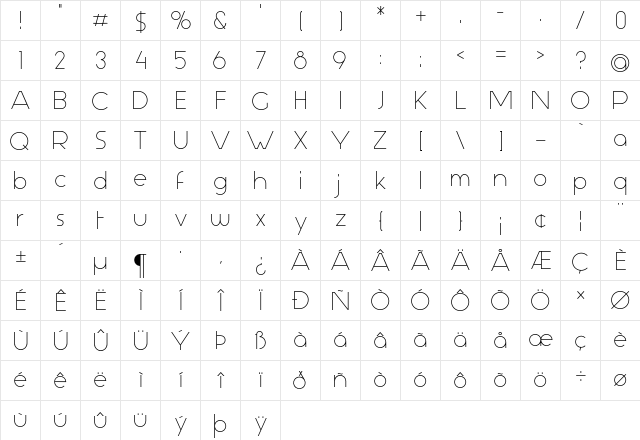
Aspergit Regular
Design Context for Aspergit Typeface
Aspergit offers clean, dependable letterforms without strong stylistic allegiance, making it a practical choice for designers who need flexibility.